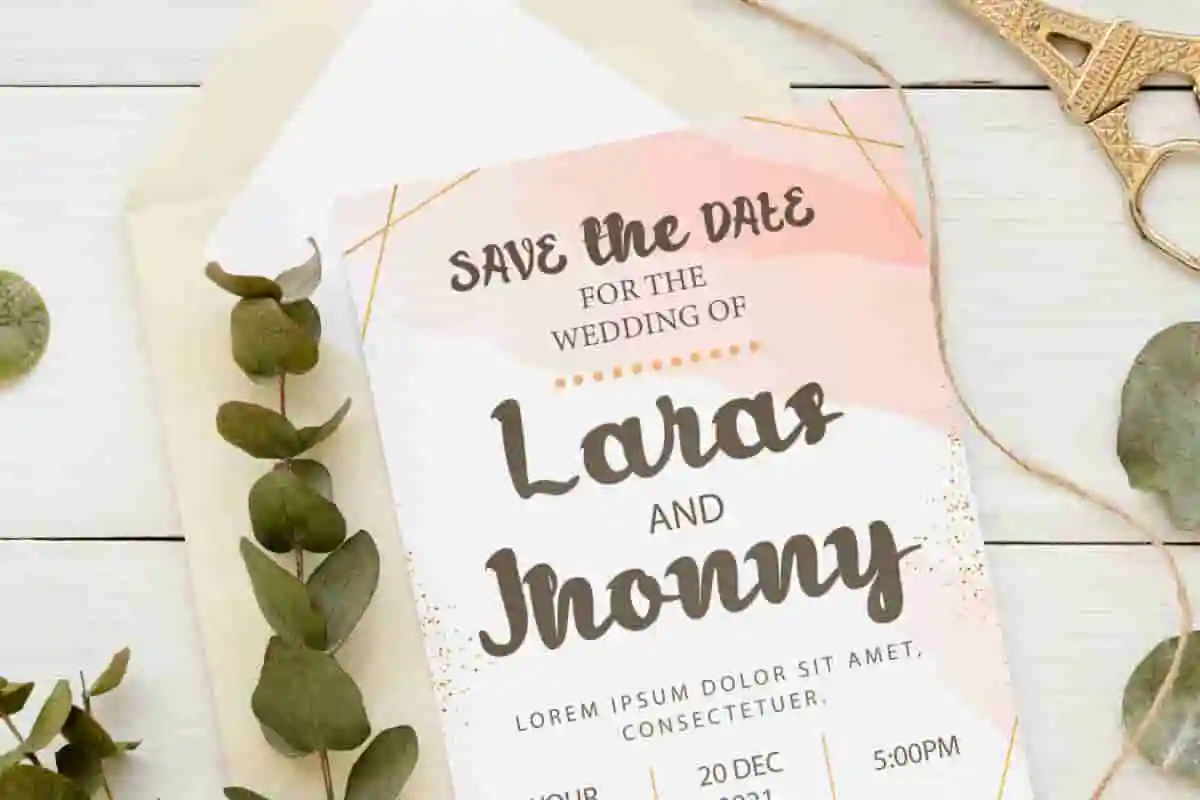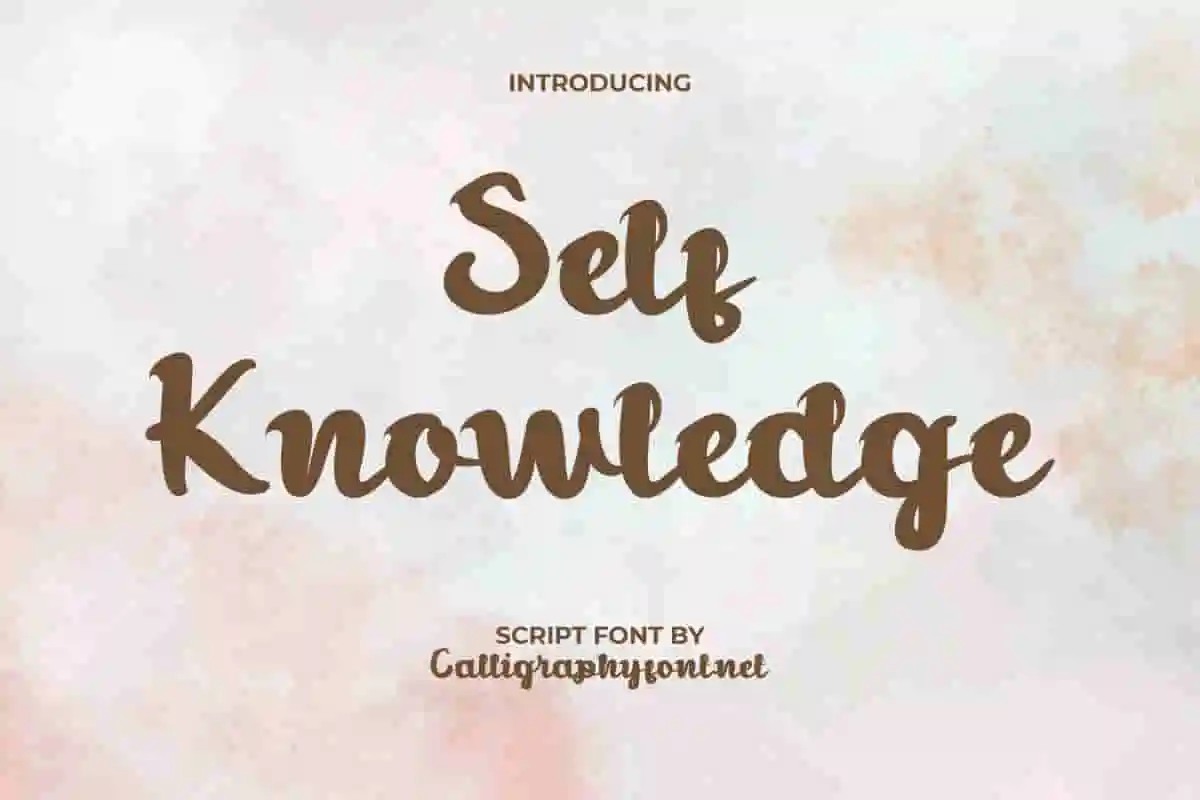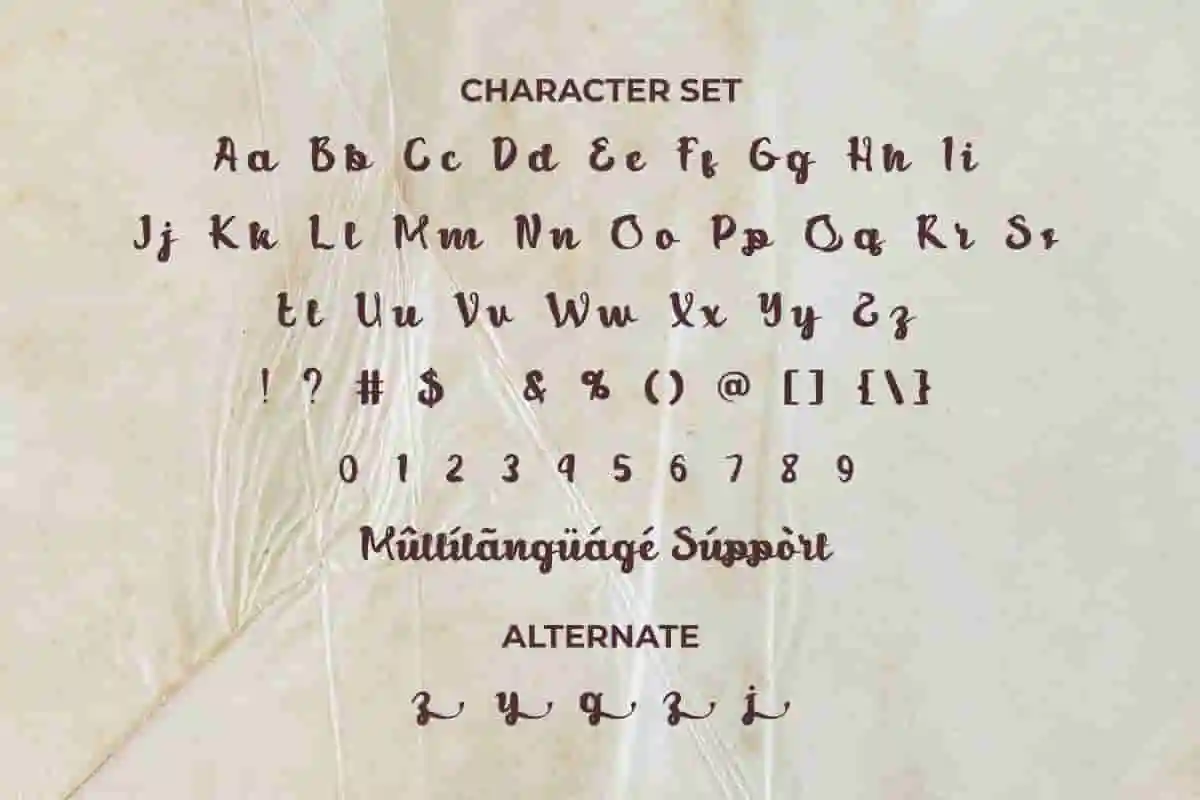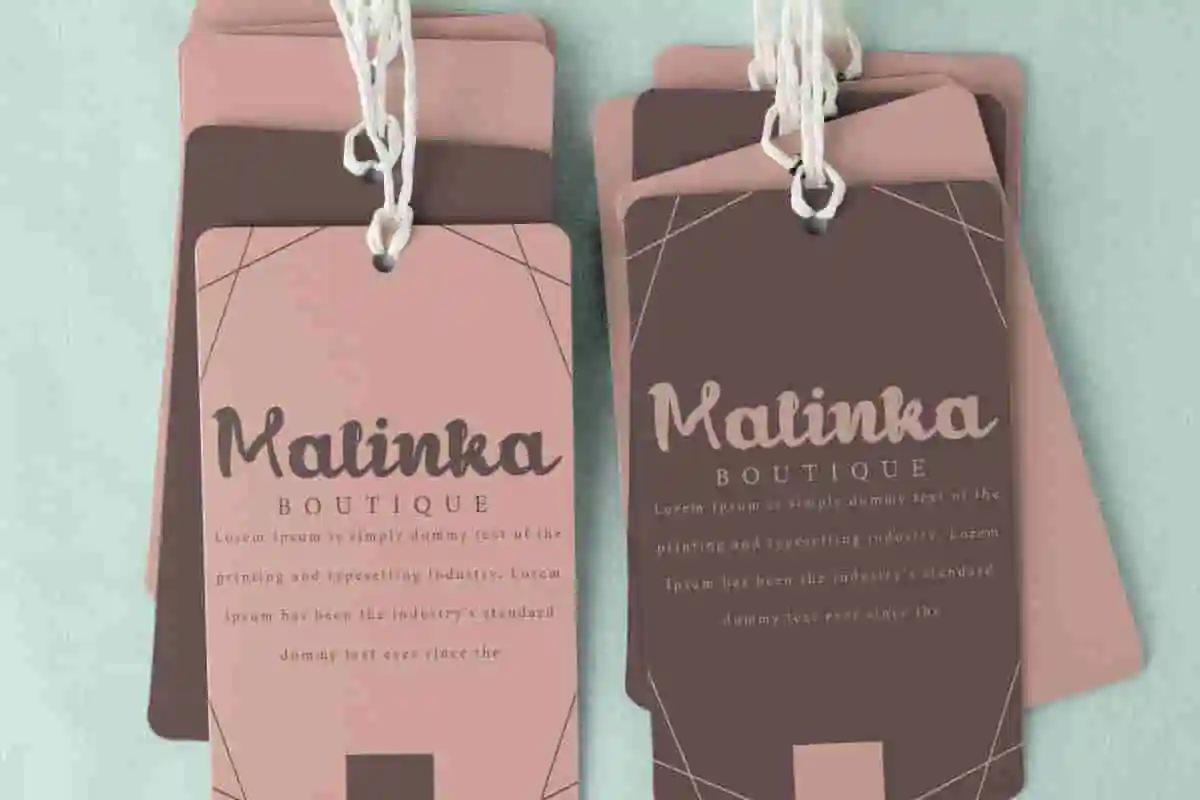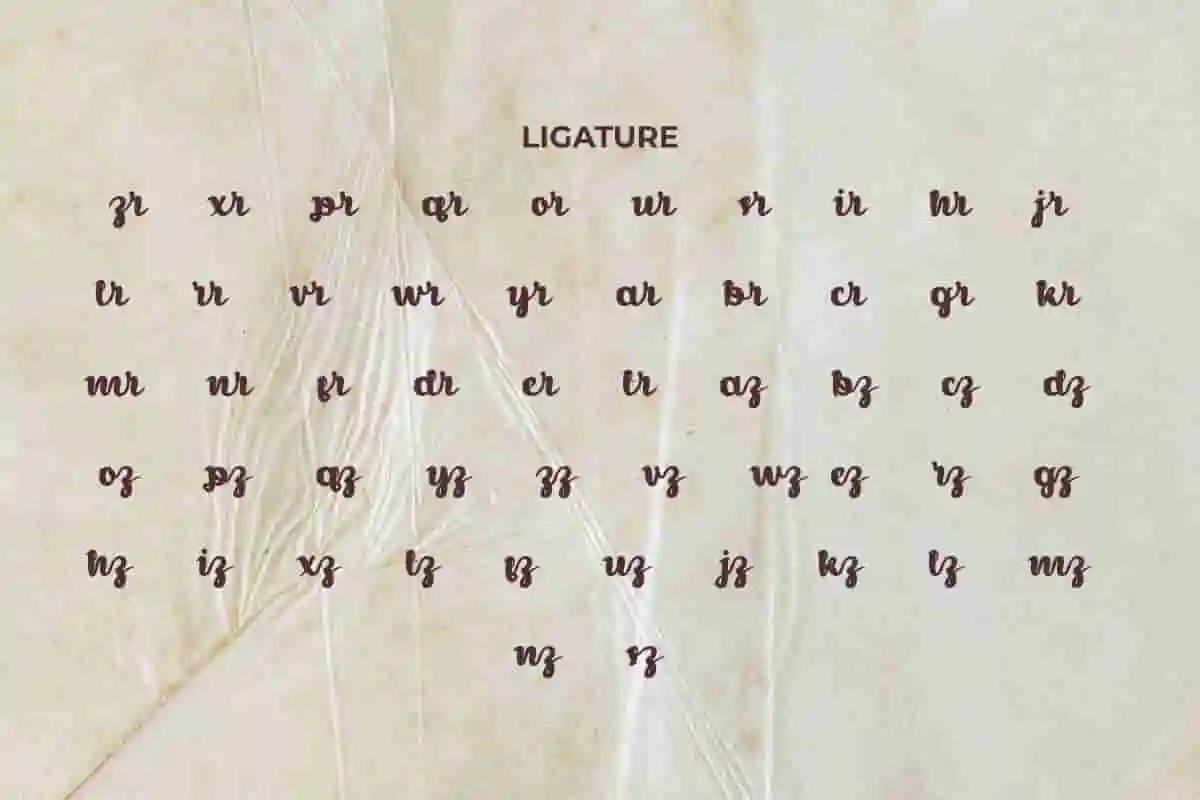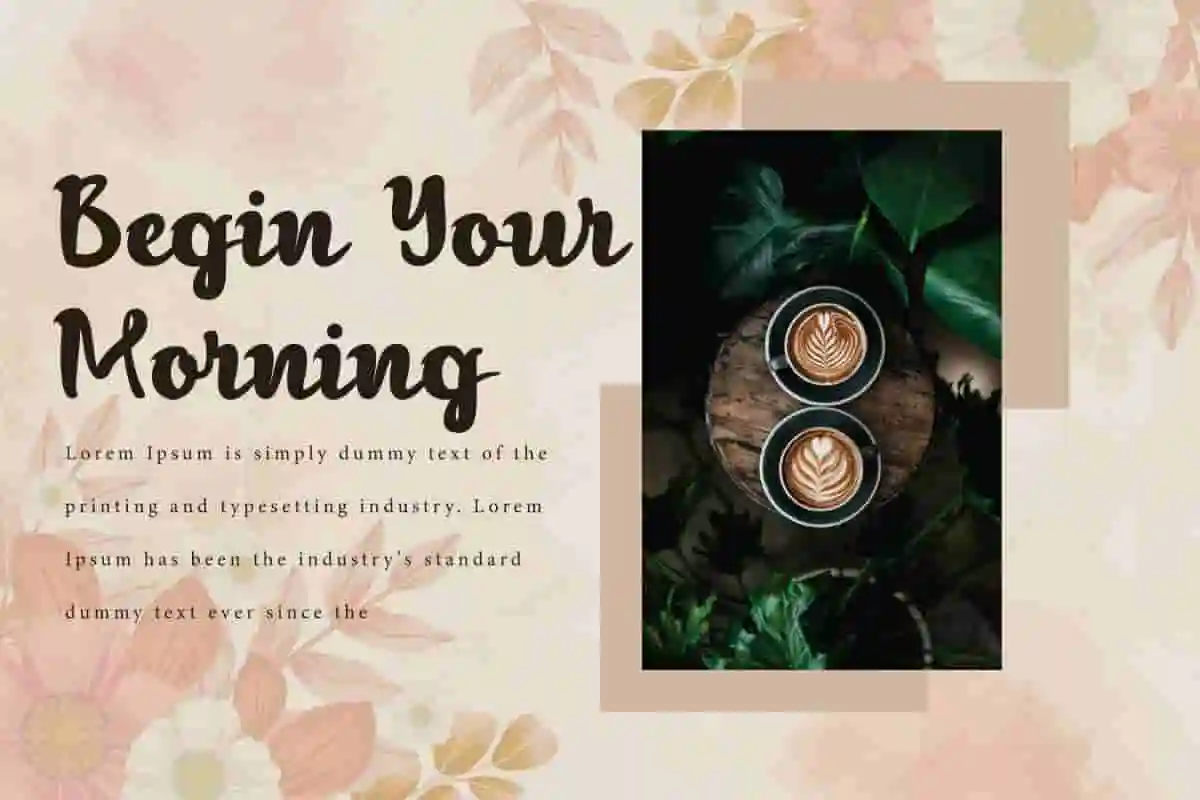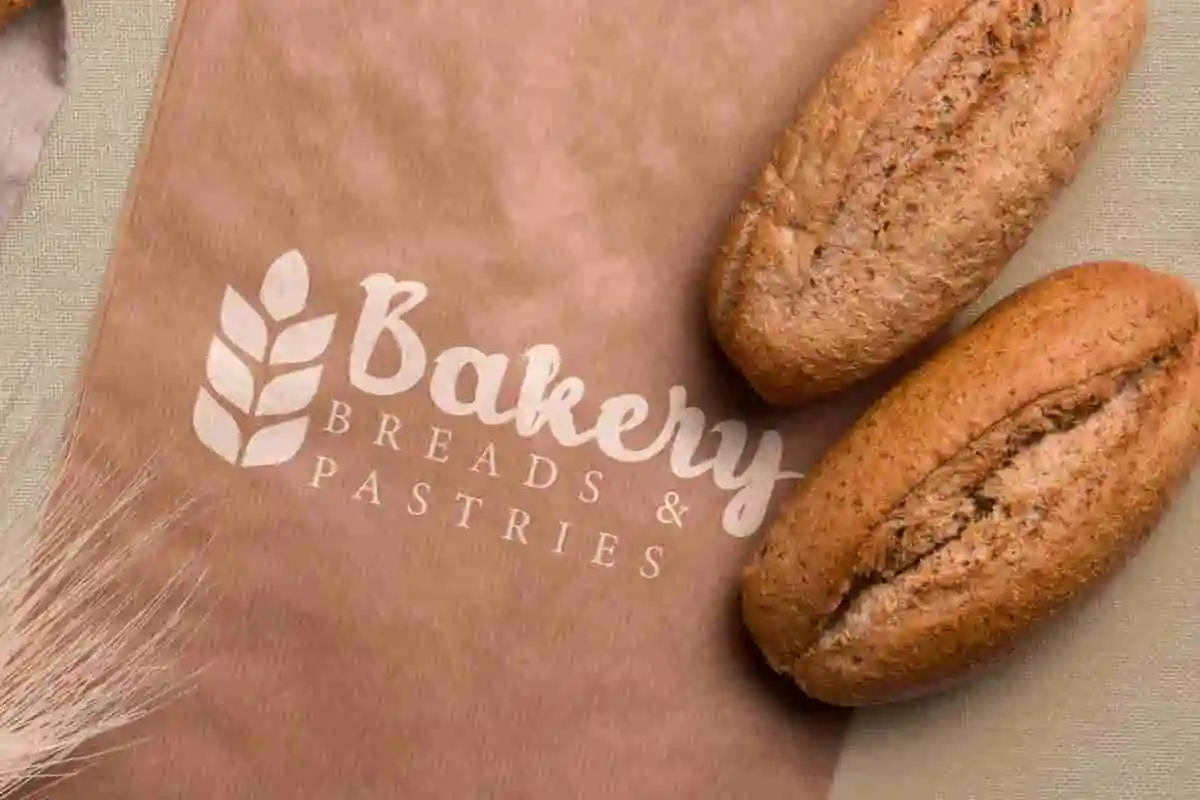
Self Knowledge
Self Knowledge Font
Self Knowledge Font is a thick handwritten script font from CalligraphyFonts. It will be great for bakery, boutique, header, label, packaging printing, photography, wedding invitation, etc.
Self Knowledge Font is a thick handwritten script font with a beautiful touch, created by CalligraphyFonts. Besides having a thicker brush, this font also has unique letters i.e. the curls on each letter which will be great for your creative projects, such as brand logo, catalog, cover, header, invitation, label, packaging design, quote, screen print, title, website, etc.
Typography is more than just letters—it’s the voice of your design. Introducing Self Knowledge Handwriting Font, a modern and stylish typeface created to bring clarity, elegance, and confidence to your creative projects. Whether you are working on branding, advertising, social media graphics, or personal artwork, this font gives your words a strong and sophisticated personality.
Self Knowledge Handwriting Font blends sleek lines with a balanced structure, making it versatile for both professional and creative use. Its contemporary style fits perfectly into logos, posters, magazines, fashion branding, or product packaging. Every curve and stroke is carefully designed to deliver readability while maintaining a stylish appearance, making your designs stand out effortlessly.
One of the greatest strengths of Self Knowledge Handwriting Font is its adaptability. Use it boldly for titles, headlines, and marketing campaigns, or combine it with minimal text layouts for elegant, modern compositions. It’s the kind of font that leaves an impression—bold yet refined, modern yet timeless.
Whether you’re a graphic designer, entrepreneur, or content creator, Self Knowledge Handwriting Font will empower your designs with a professional edge. It’s not just a typeface—it’s a creative tool that elevates your message and connects with your audience.
Bring out the best in your projects with Self Knowledge Handwriting Font and experience how typography can transform ideas into powerful visual stories.
Self Knowledge Handwriting Font is a casual handwriting that’s a great choice for use as the main text or paired with other font types. This font will stand out for any project, including: bakery, boutique, florist, handicraft, homeware, interior design, photography, restaurant, spa salon, skincare, wedding organizer, writer, and many more. Carefully crafted to create perfection in writing and add aesthetics to the font.
Self Knowledge Handwriting Font comes with a full set of Uppercase and Lowercase Basic Characters, Number, a large range of Punctuation and Symbol. Also Alternate and Ligature characters attract attention supported multilingual characters. In order to use alternative characters, usually we just need to block the end letters and select alternative letters on glyphs option. Ready to use both on Windows machine or Mac with simple installations. It’s tested to work well in the Adobe Apps (Illustrator, Adobe InDesign, Adobe Photoshop) CorelDraw, and others. PUA Encode Characters means you can access all the glyphs and other additional characters easily – Fully accessible without additional design software.